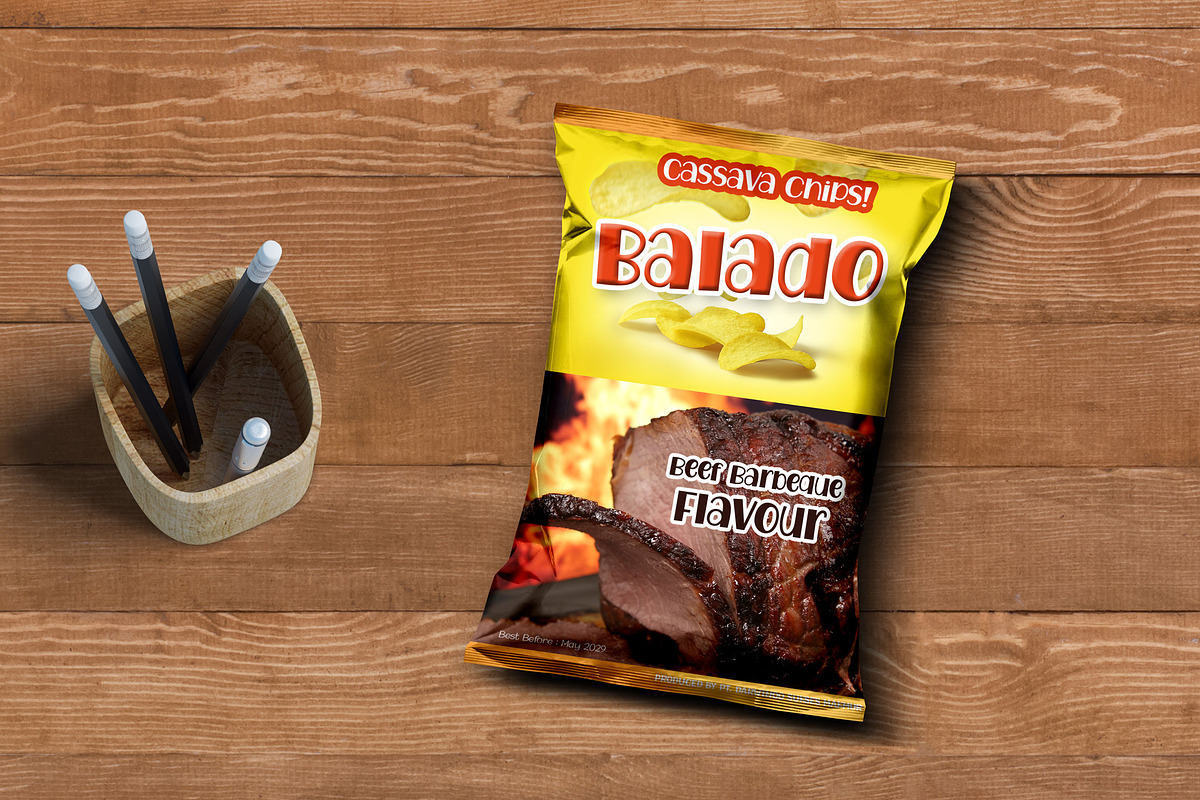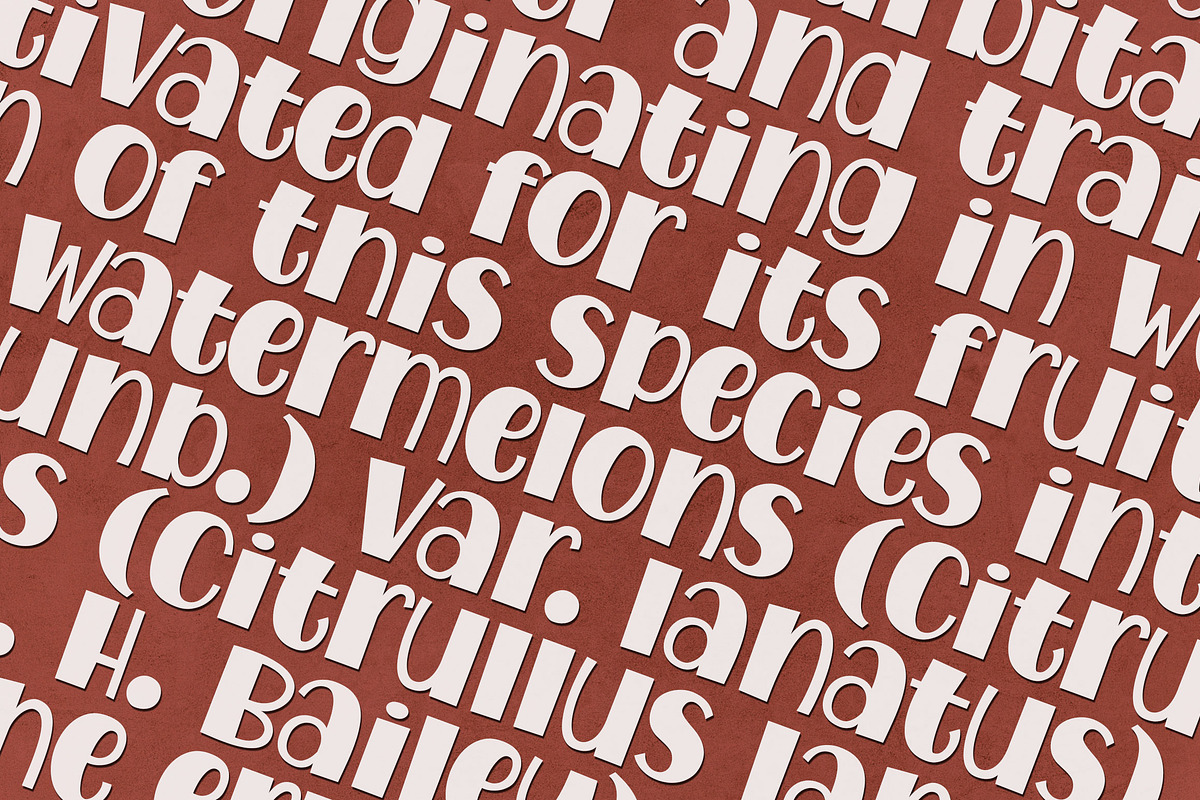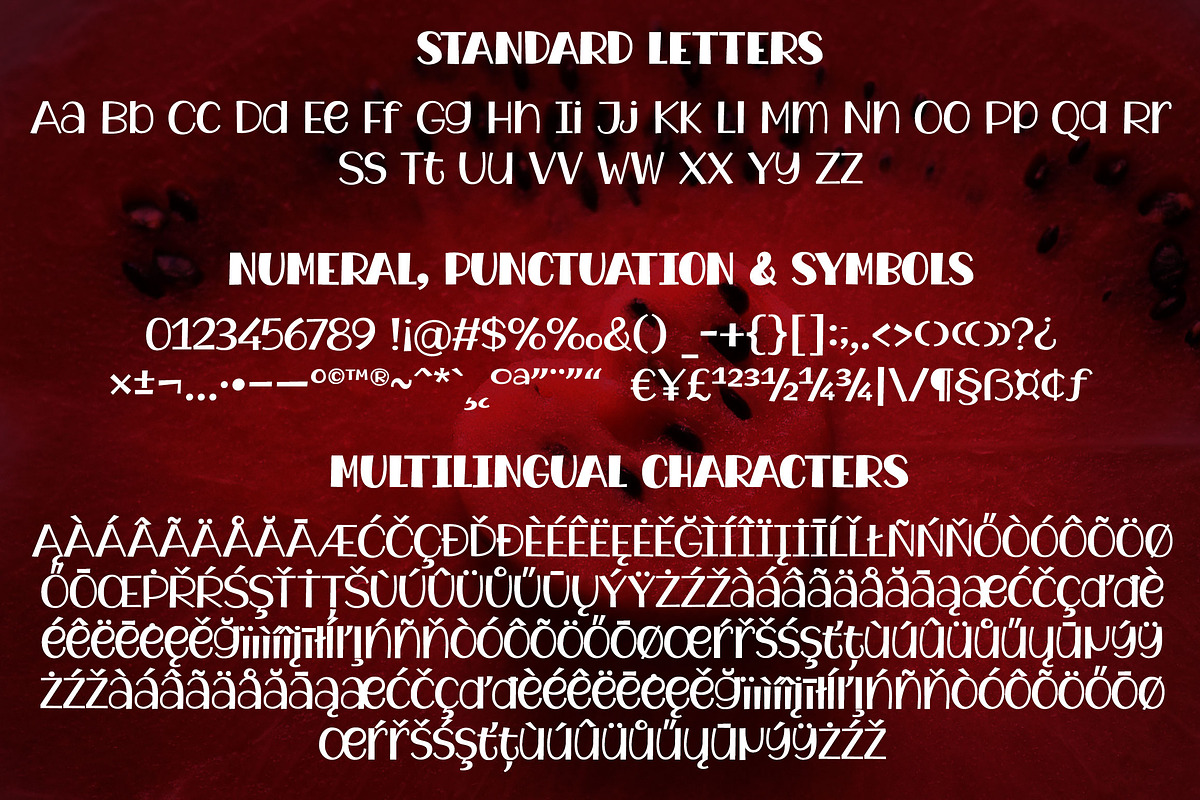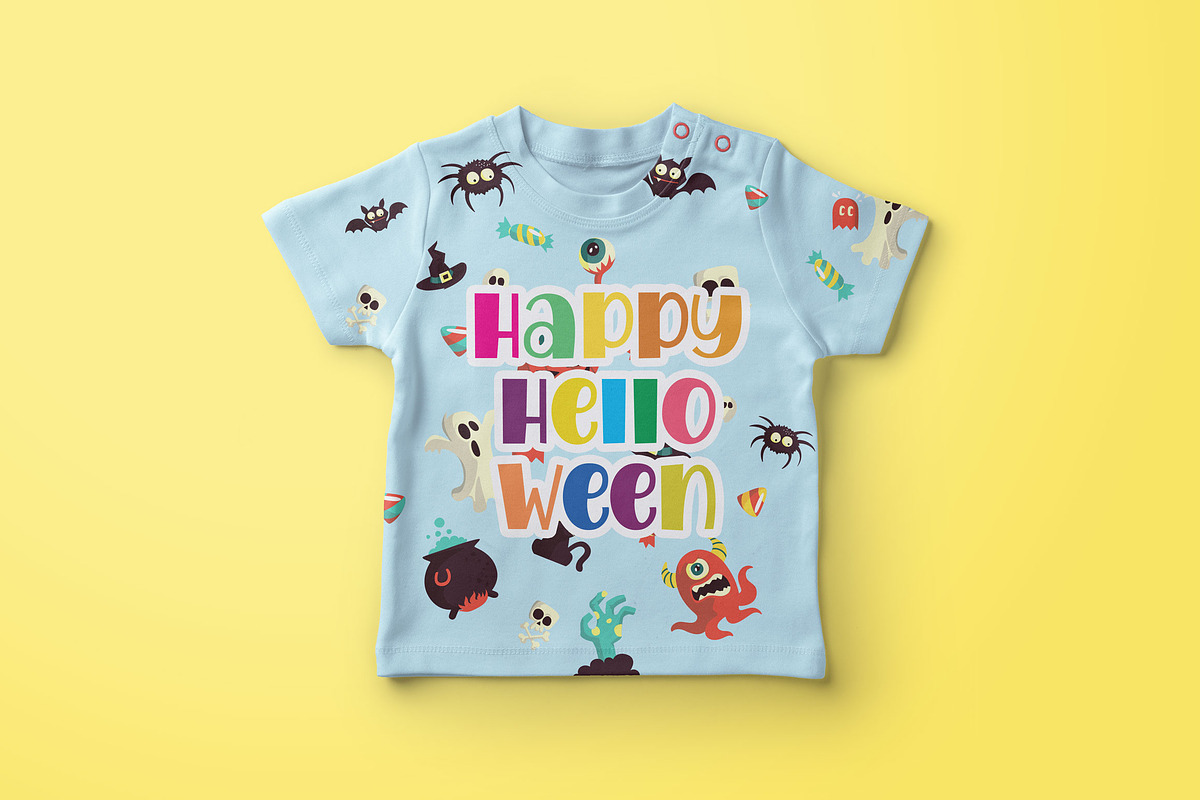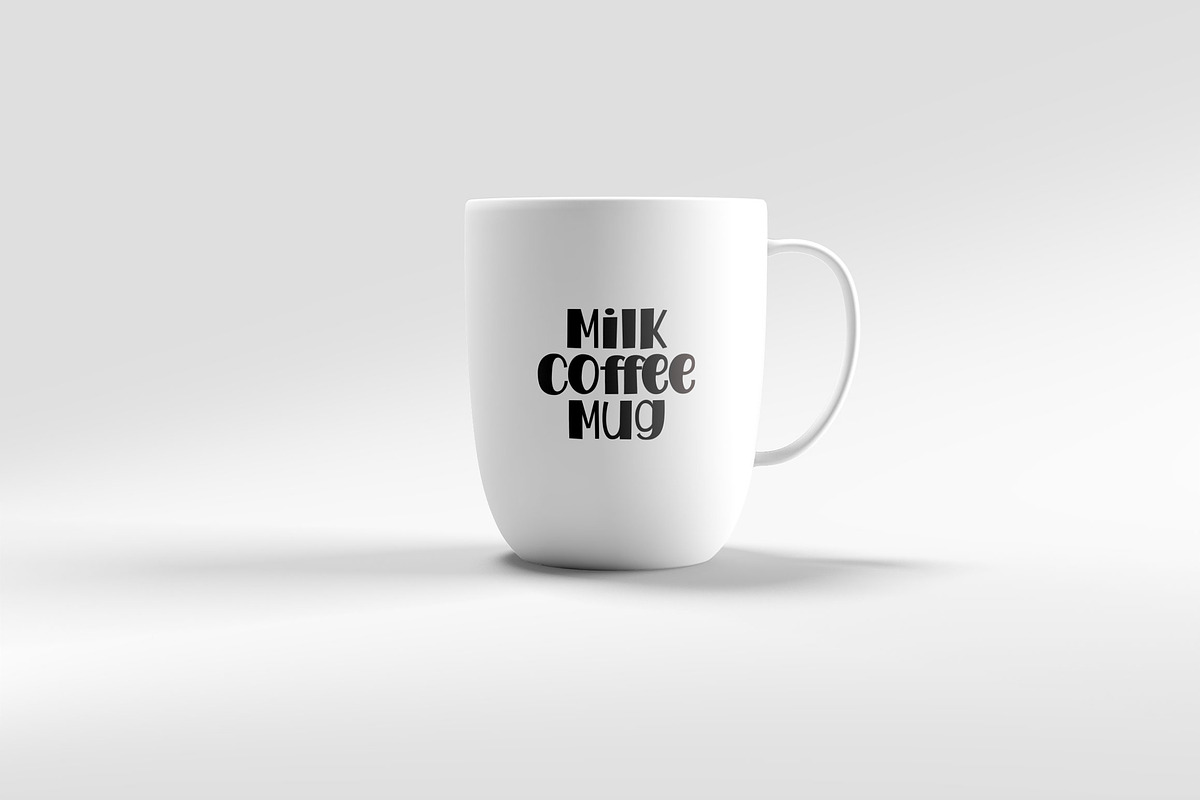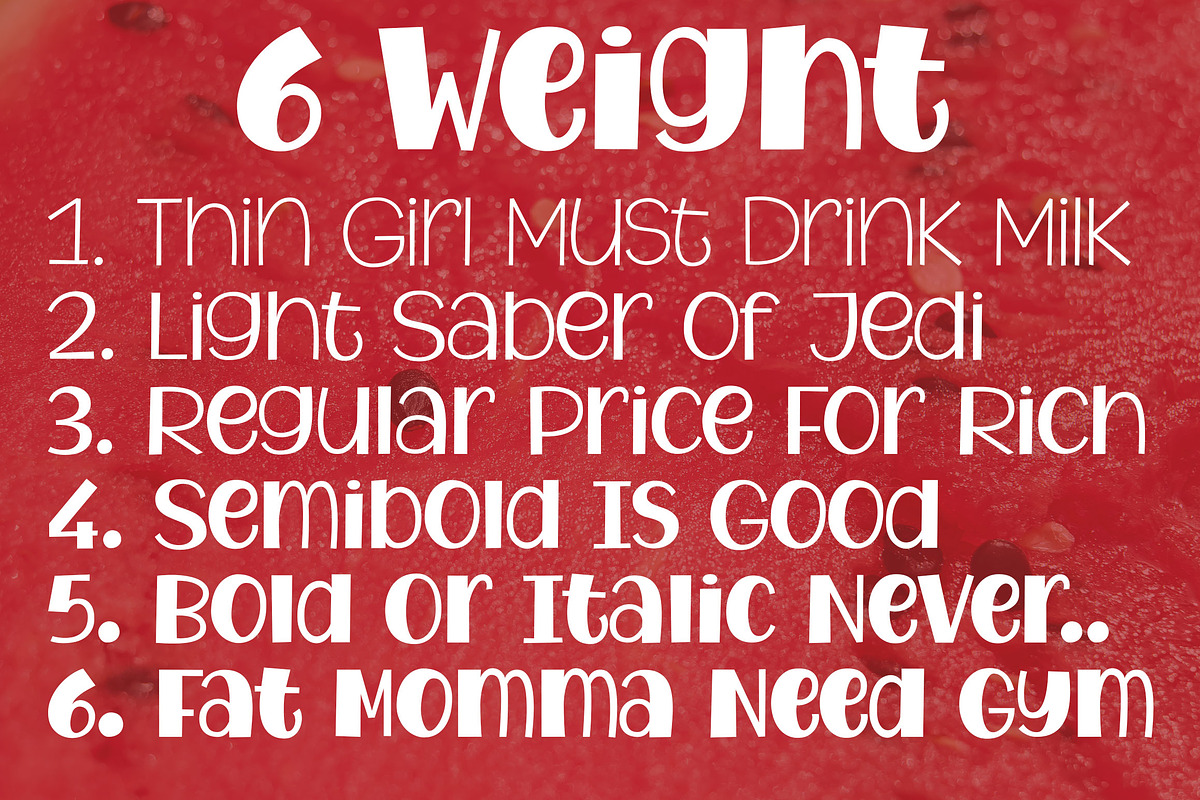
Watermelon Font Family
Introducing a new cool comic font family.. This font was carefully crafted with clean node. Available in six weight variation, so you can enjoy design a page just with a font family.
Good kerning even you mix uppercase-lowercase-uppercase
Complete Latin and Eastern Europe characters.
Watermelon Font Family by Royaltype fits naturally into Branding, posters, packaging, typography.